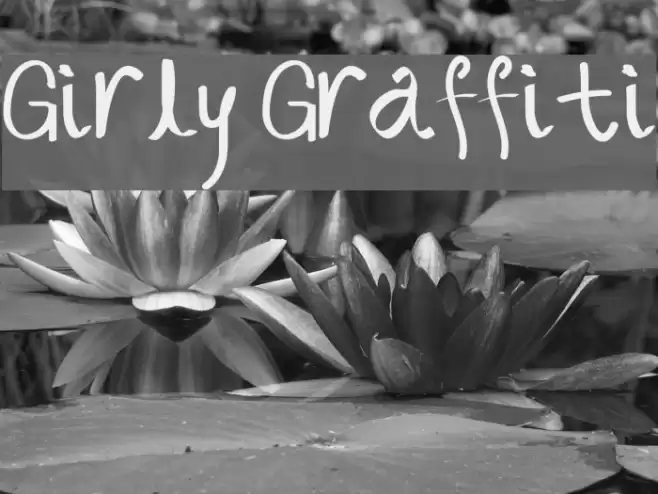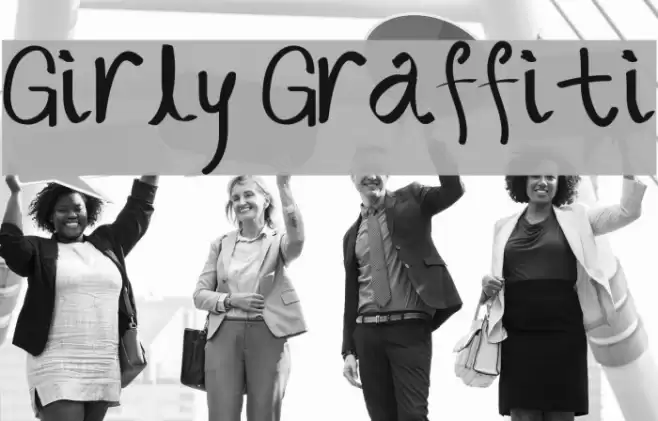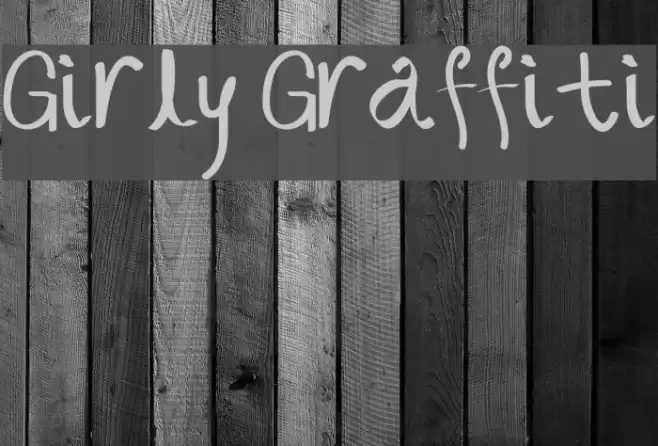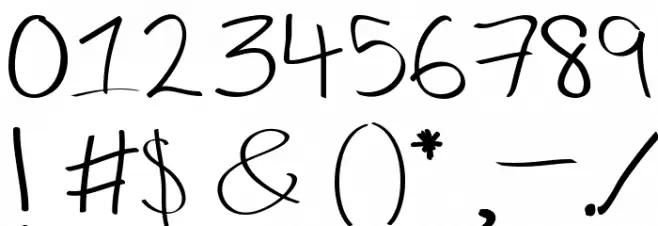
Girly Graffiti Font
Girly Graffiti Description
This playful and energetic font exudes a youthful and vibrant personality, characterized by its whimsical and free-spirited design. The letters are crafted with a casual, hand-drawn style that mimics the look of graffiti, yet maintains a feminine touch. The uppercase letters are bold and slightly irregular, adding to the font's dynamic feel, while the lowercase letters are more rounded and flowing, providing a nice contrast. The numbers and special characters follow the same lively aesthetic, making them perfect for creative and informal projects. Overall, this font captures a sense of fun and spontaneity, ideal for designs that aim to convey a sense of joy and creativity.
A playful, hand-drawn graffiti-style font with a feminine touch from Uncategorized fonts.
- Proposed Projects: Perfect for children's book covers, playful branding, event posters, and social media graphics.
- Overall Style: Playful, Energetic, Whimsical
- Use Case: Headlines, Posters, Branding